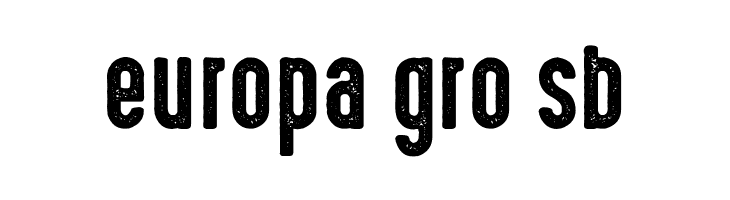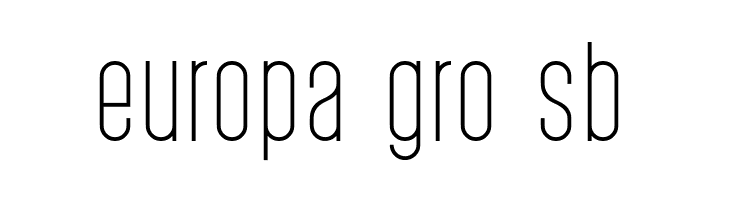
A bold, distressed font with a rough, vintage texture.
A modern, geometric font with bold, rounded characters.
A modern, light, and elegant sans-serif font with tall, narrow characters.
A dynamic, brush-stroke font with an artistic and textured appearance.
A bold, modern sans-serif font with a geometric structure and uniform thickness.
A pixelated, grid-like font with a retro digital aesthetic.
A bold, modern font with uniform strokes and strong visual impact.
A romantic, cursive script font with elegant, flowing lines and decorative flourishes.
A bold, vintage serif font with a distressed texture and strong presence.
An elegant serif font with a classic italic slant and moderate stroke contrast.
Bold, blocky unicase font with a vintage, distressed texture.
A bold, playful font with rounded, whimsical elements and consistent weight.
A bold, high-contrast serif font with pronounced serifs and wide uppercase letters.
A modern, geometric outline font with clean lines and consistent stroke width.
A bold, shadowed font with a three-dimensional effect, ideal for impactful designs.
A bold, three-dimensional font with a retro shadow effect.
A decorative outline font with a playful and creative style.
A bold, vintage-inspired font with thick strokes and a modern twist.
A bold, decorative font with a three-dimensional side fill effect.
A bold, striped decorative font with a modern flair.
A bold, shadowed font with a three-dimensional effect, perfect for impactful designs.
A bold, decorative font with a three-dimensional effect and vintage flair.
A bold, woodcut-style font with horizontal lines and a vintage-modern appeal.
A bold, woodcut-inspired font with intricate detailing and a three-dimensional effect.
A bold, three-dimensional woodcut style font with textured, shadowed letters.
A bold, geometric font with tall, narrow characters and sharp angles.
A modern, clean sans-serif font with uniform stroke width and geometric influence.
A bold, modern font with thick strokes and strong visual impact.
A modern, italicized font with clean lines and consistent stroke width.
A modern, light, and elegant italic font with sleek lines.
A bold, modern sans-serif font with strong visual impact and high legibility.
A bold, modern sans-serif font with a unicase design and geometric structure.
A modern, light sans-serif font with low contrast and balanced proportions.